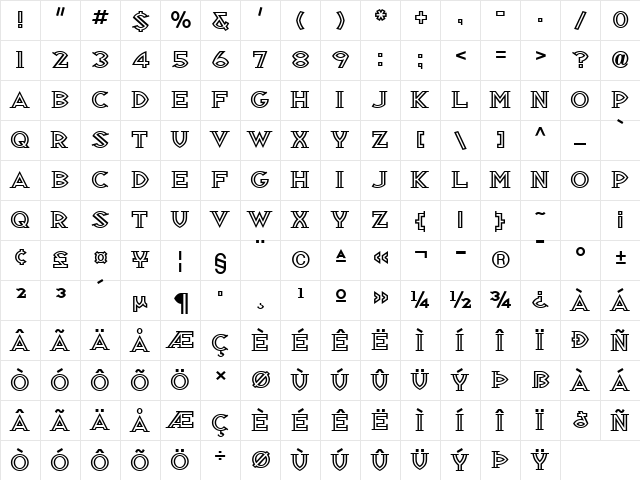
Republik Serif ICG 03 Regular
Design Context for Republik Serif ICG 03 Typeface
Republik Serif ICG 03 brings classic typographic sensibility to the table — its serifs and measured letterforms reflect centuries of print heritage.
Pro Tip: Set Republik Serif ICG 03 with slightly loose tracking in headlines to let each letterform's detail read clearly at display sizes.